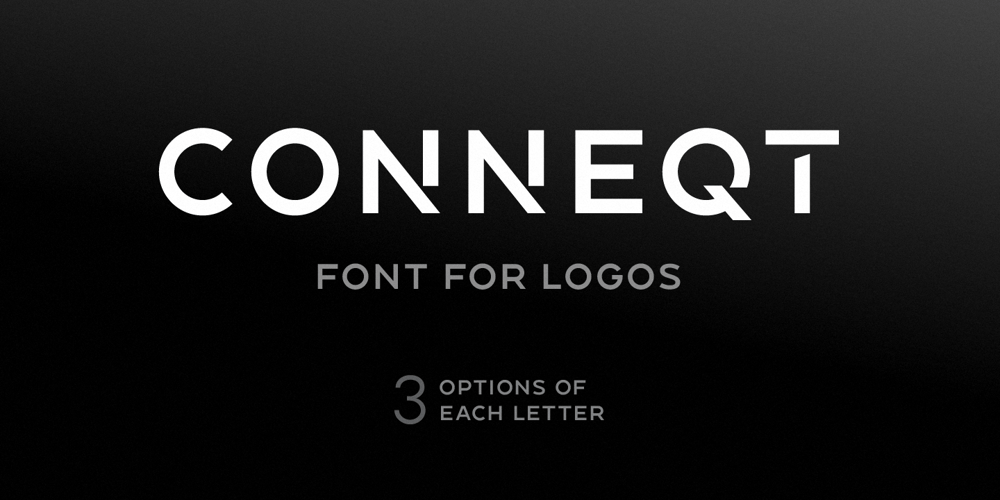
Conneqt Font Family was designed by Roman Melikhov and published by Roman Melikhov. Conneqt contains 3 styles and family package options. Conneqt is a font for design of minimalist logos.The font is suitable for creating wordmarks, titles, taglines.Use alternates to emphasize separate letters in your text.All alternate options of the characters are included in each font.You can use alternates in most major image editors, just find menu item Glyphs (Alternates) there.For any questions about the font please contact: arbuzzu@gmail.com